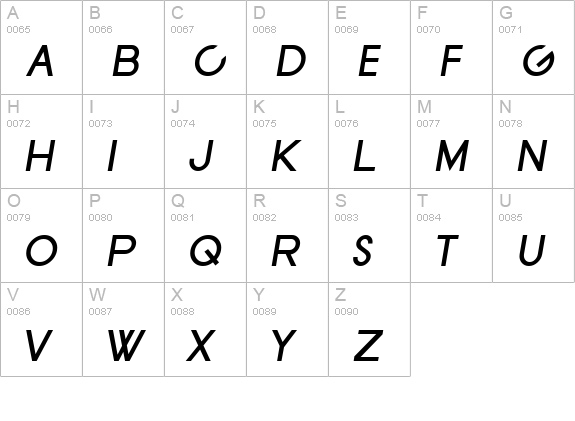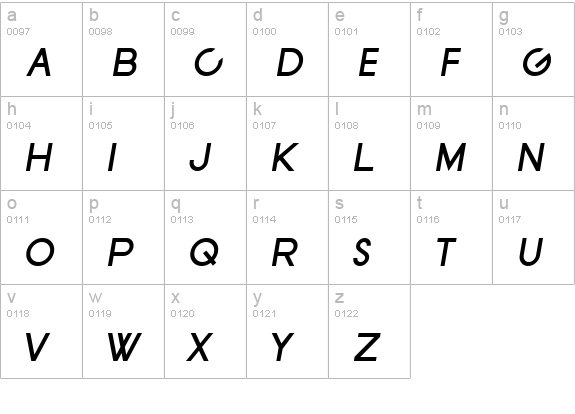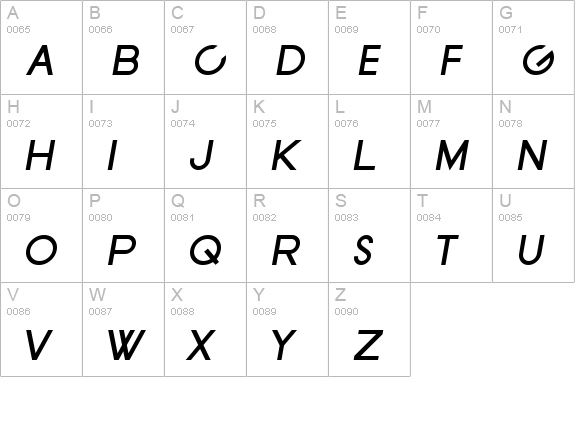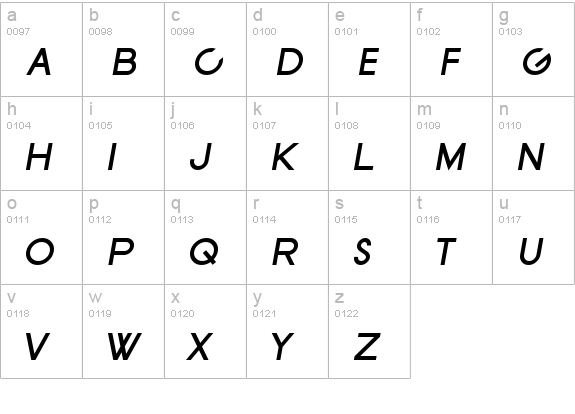
SF New Republic SC Bold Italic Font Details
SF New Republic SC Bold Italic is a strong, high-contrast, italic variant in the SF typeface family \xE2\x80\x94 well suited to headlines, attention-grabbing titles, and strong calls-to-action.
Introducing SF New Republic SC Bold Italic, a striking and captivating font that exudes an air of sophistication and modernity. This font is the perfect embodiment of sleekness and boldness, with its unique blend of strong, confident lines and elegant curves. It effortlessly combines the power of a bold typeface with the grace of an italicized script, creating a harmonious balance that is both eye-catching and versatile. Designed for those who dare to stand out from the crowd, SF New Republic SC Bold Italic is sure to make a lasting impression. Whether used for headlines, titles, or logos, this font commands attention and conveys a sense of authority and innovation. Its distinct personality effortlessly adds a touch of elegance and professionalism to any design project. What makes SF New Republic SC Bold Italic even more appealing is that it is freely available for download at FontsMarket.com. This means that you can easily access and utilize this stunning font without any cost or restrictions. Its accessibility allows you to explore its full potential and unlock endless creative possibilities. No matter the purpose or medium, SF New Republic SC Bold Italic will elevate your designs to new heights. From print materials to digital platforms, its versatility ensures that it can seamlessly adapt to any project, whether it be for branding, advertising, or personal use. With SF New Republic SC Bold Italic, your designs will exude confidence, elegance, and a touch of modernity. Let this font become your secret weapon in capturing attention and making a lasting impact. Download it for free today at FontsMarket.com and embark on a journey of limitless creativity.